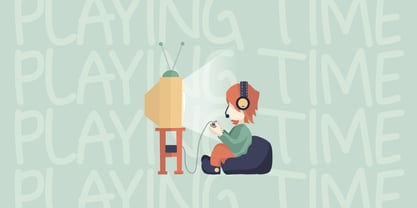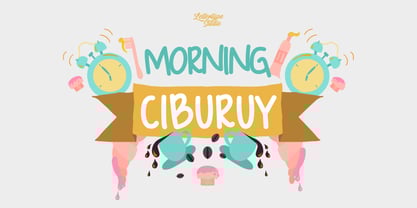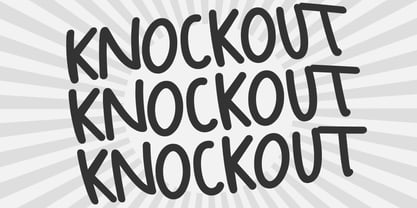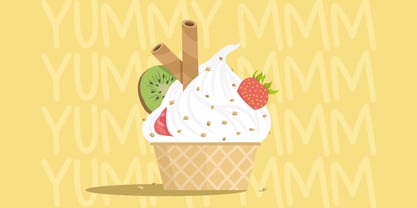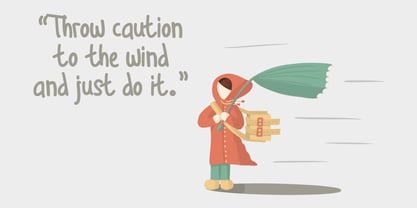
Morning Ciburuy
by Lettertype Studio
The Morning Ciburuy Font Family was designed by Diki Pradipta Tri Atmojo and published by Lettertype Studio. Morning Ciburuy contains 2 styles and family package options. More about this family
We are introducing Morning Ciburuy. A Natural Handwriting Display!
This font is inspired by kid's style this font is very good for logos, design titles, displays, branding, posters, logotypes, mockups, book covers, quotes, etc.